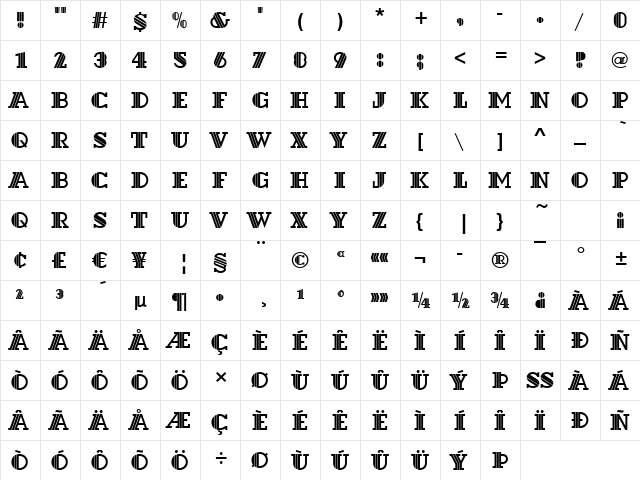
Delano Regular
Design Context for Delano Typeface
Delano is a composed and adaptable typeface that performs quietly and consistently across a wide range of design contexts.